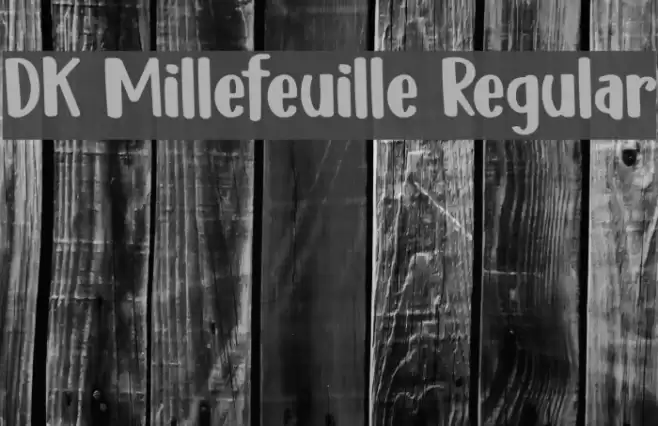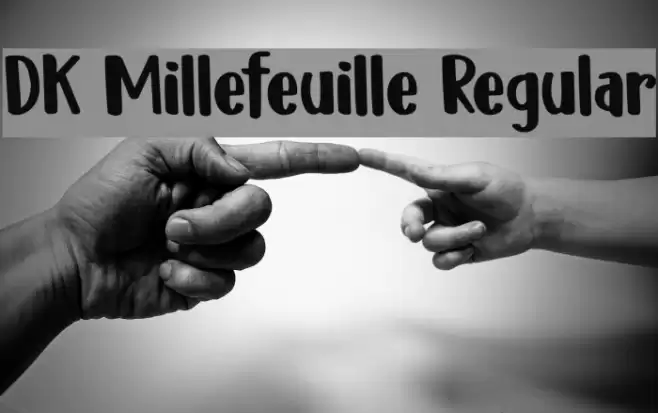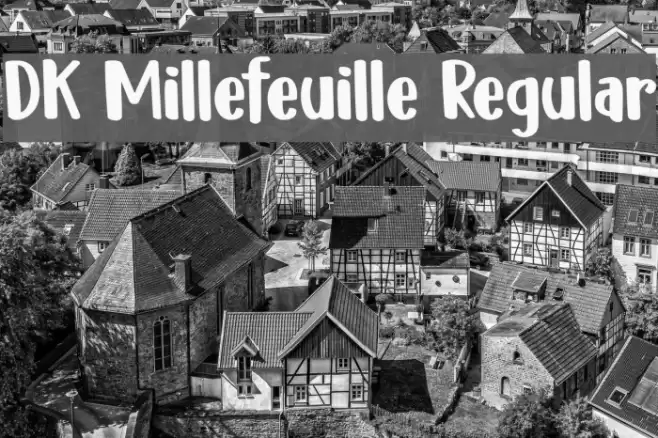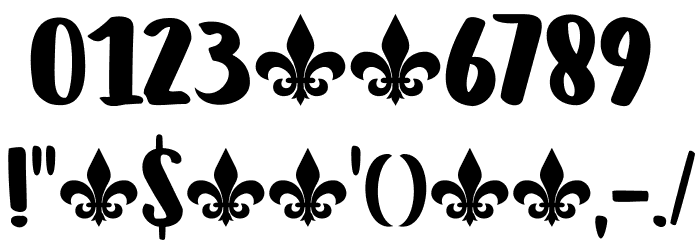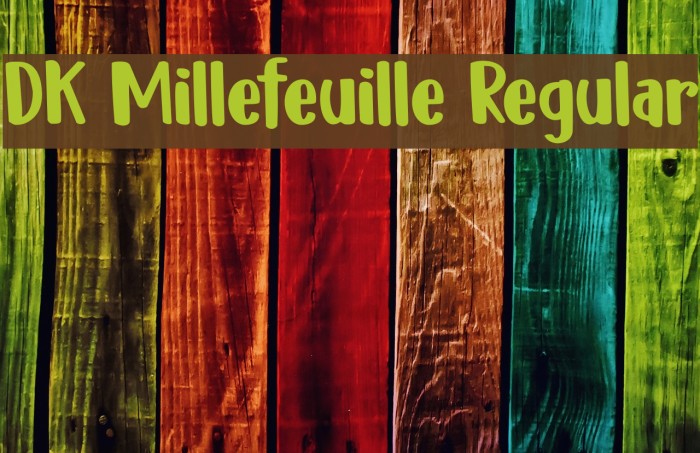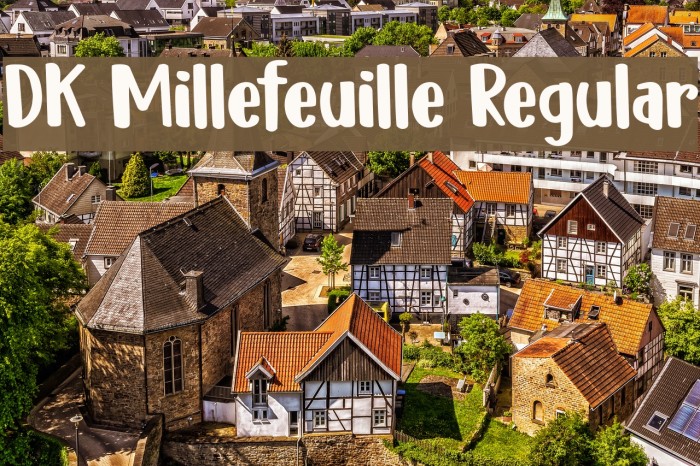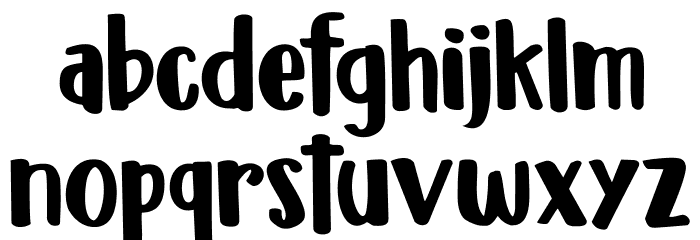
DK Millefeuille Regular Font
DK Millefeuille Regular Description
This font features a playful and bold design with a handwritten style. The characters are rounded and slightly irregular, giving it a friendly and approachable appearance. The uppercase and lowercase letters maintain a consistent weight, while the numbers and special characters are designed to match the overall aesthetic. The font includes unique decorative elements, such as fleur-de-lis symbols, which add a touch of elegance and whimsy. Its bold strokes and rounded edges make it suitable for eye-catching designs.
A playful, bold, handwritten font with decorative elements from Uncategorized fonts.
- Proposed Projects: Ideal for children's book covers, playful branding, greeting cards, and posters.